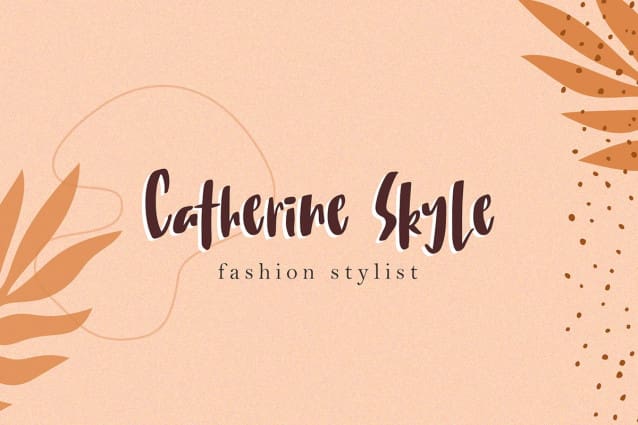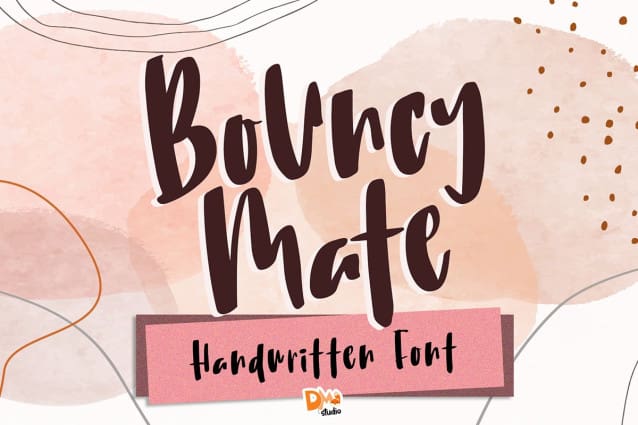
Bouncy Mate Font
Bouncy Mate font – a playful and vibrant typeface that adds a lively touch to your creative projects. Download for free Personal Use and bring a bounce to your typography!
The Bouncy Mate Font is a vibrant and dynamic typeface that radiates energy and playfulness. With its lively letterforms and cheerful design, this font adds a burst of excitement and friendliness to your designs, making it ideal for a variety of creative projects, including logos, branding, social media graphics, and more.